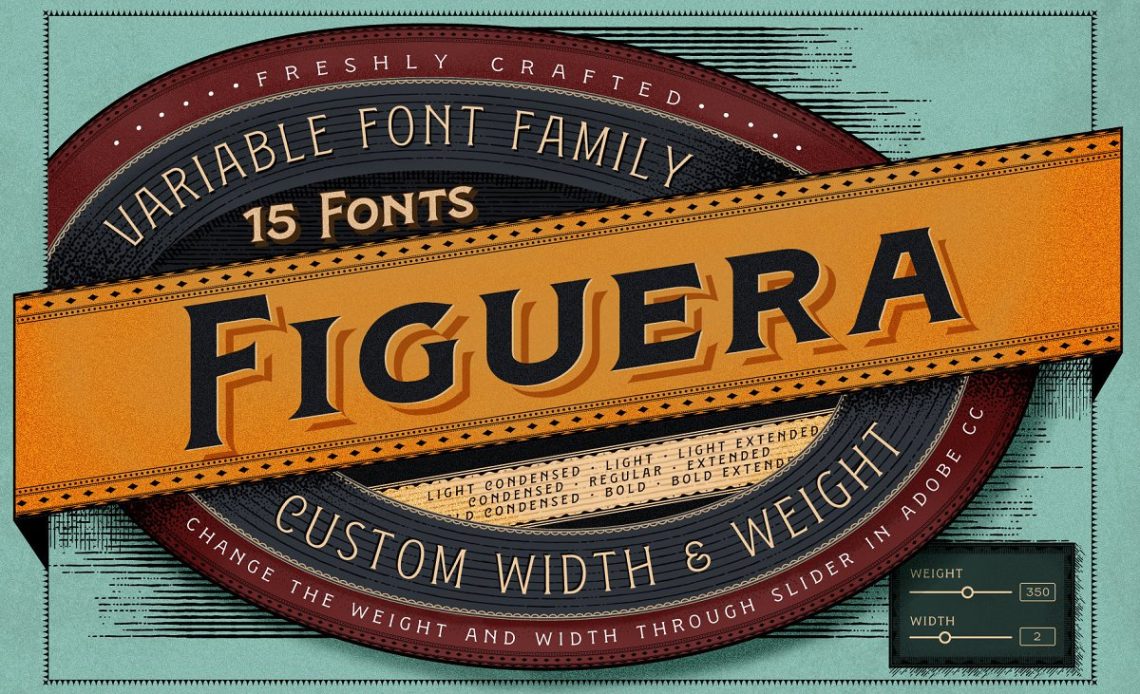
Looking for the best font for family trees? Look no further than Figuera Variable Fonts, created by the talented Adam Fathoni Haris. Figuera Variable Fonts are a beautiful serif font family, perfect for creating stunning family trees that will be treasured for generations to come.
Inspired by Victorian-style typefaces, Figuera Variable Fonts come in a range of widths and weights, making it easy to create fluid designs using just a single font family. And with different formats available, including bonus borders, you can let your creativity run wild.
But what really sets Figuera Variable Fonts apart is its new Variable Features. With these features, you can create custom widths and weights that go beyond what's available in the standard font files. And with the ability to play with sample variables on the V-Fonts website, you can see just how versatile these fonts can be.